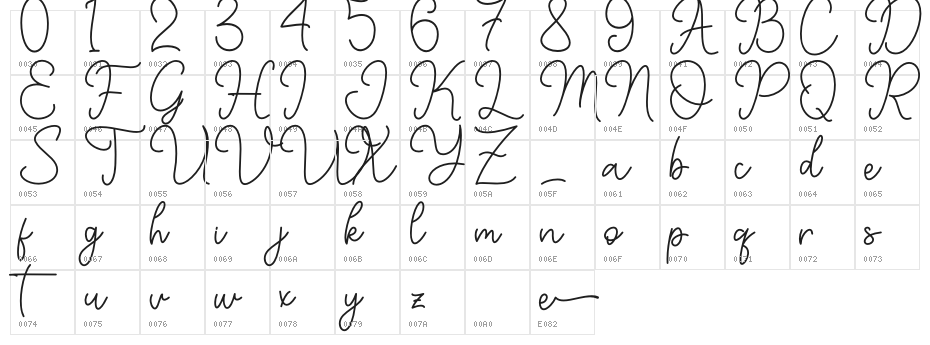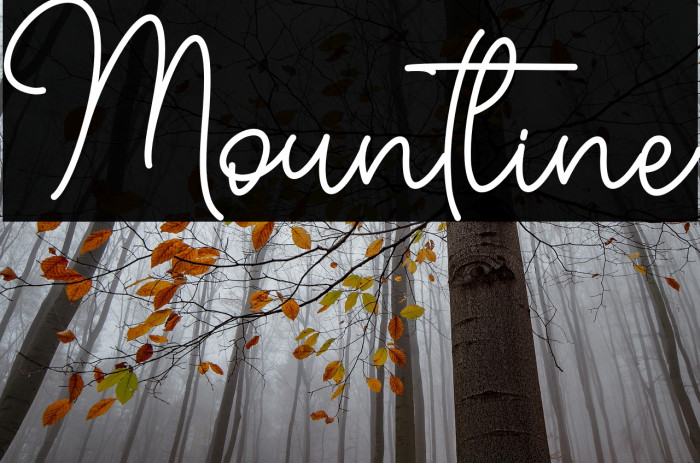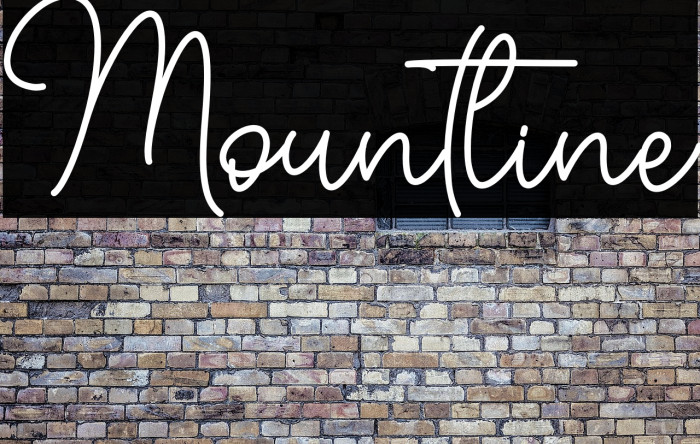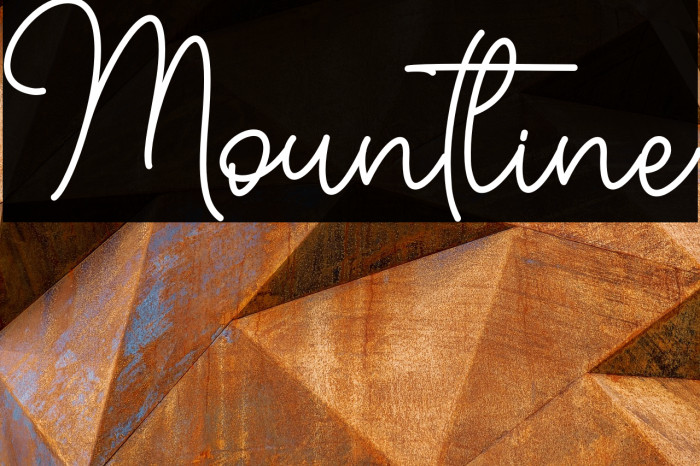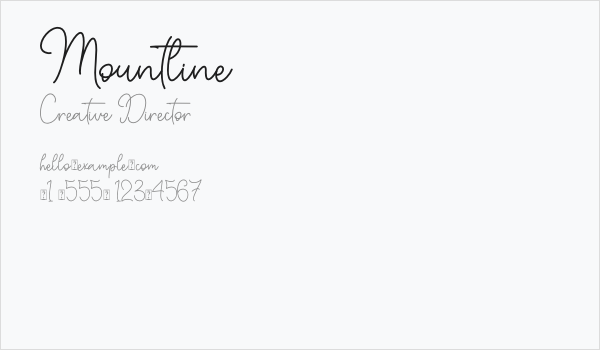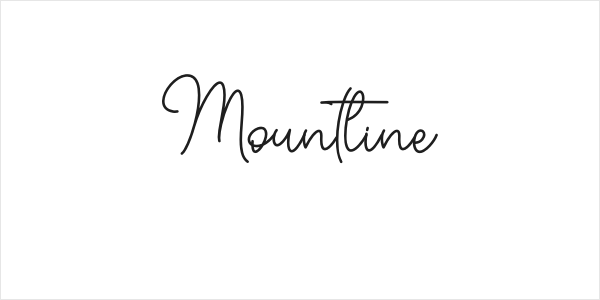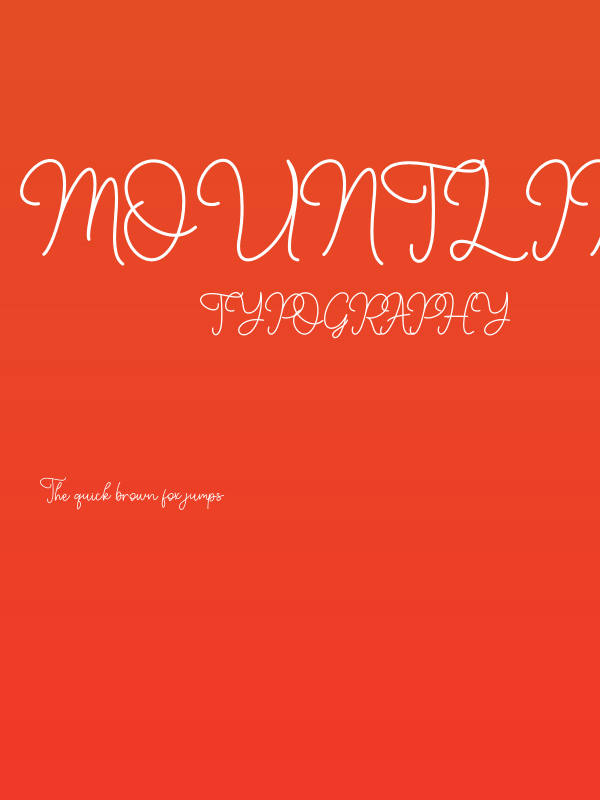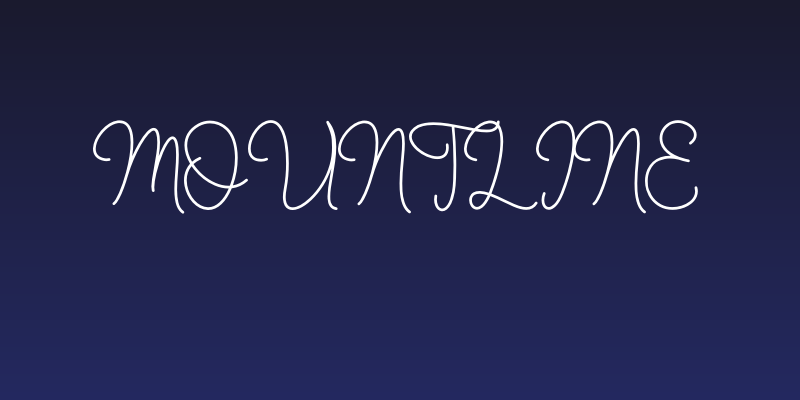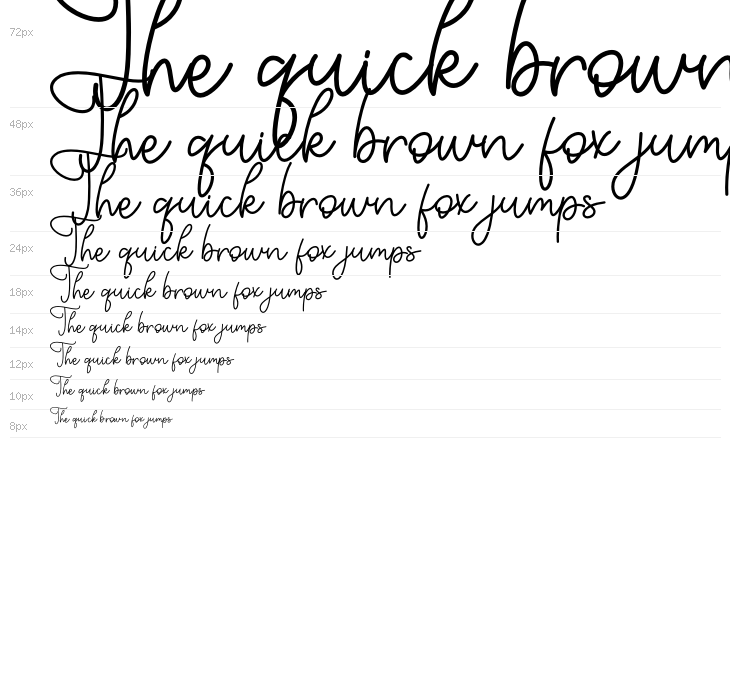
Mountline Font
Mountline Description
This elegant script font features a flowing, cursive style that mimics natural handwriting. The uppercase letters are gracefully connected, while the lowercase letters maintain a smooth, continuous flow. The numbers are designed with a similar fluidity, adding to the cohesive look of the font. The special characters are crafted to match the overall aesthetic, ensuring consistency throughout. This font is perfect for projects that require a personal, handwritten touch, such as invitations, greeting cards, or branding materials.
| Overall Style | Elegant, Handwritten |
| Use Case | Logos, Invitations, Greeting Cards |
| Proposed Projects | Ideal for wedding invitations, personal branding, greeting cards, and elegant logos. |